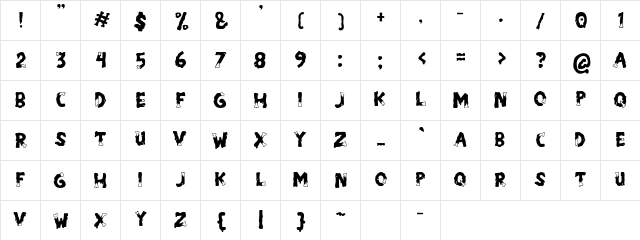
Dr.Ziemboz 3 Regular
Design Context for Dr.Ziemboz 3 Typeface
Dr.Ziemboz 3 is a composed and adaptable typeface that performs quietly and consistently across a wide range of design contexts.